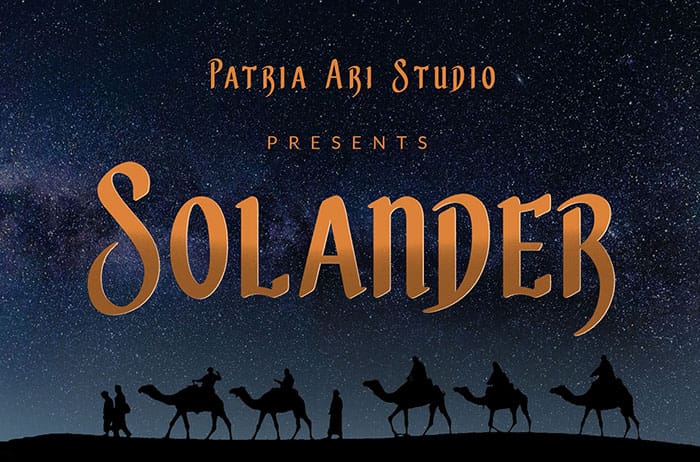
Solander Display Font
Solander is a Display Font with sharp shaped characters to support your brand/project. It is perfect for projects such as logos & branding, headlines, posters, signage, and more. Thanks to Patria Ari Typestudio for sharing this font! Take a look at this portfolio for more of his stunning fonts.